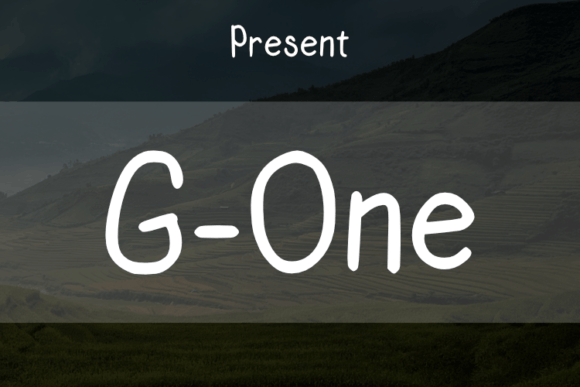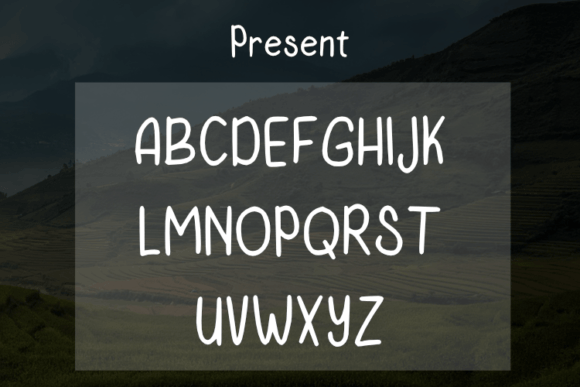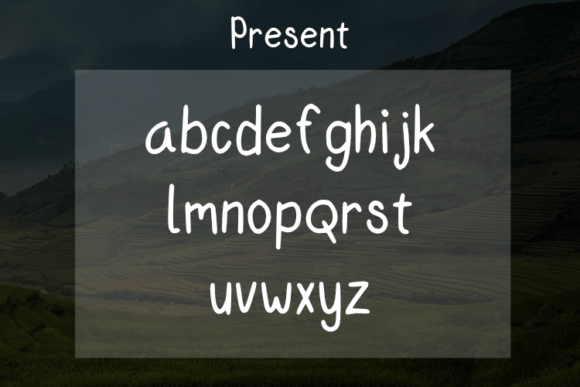
G One Font
About G One Font
G One is a stylish and delicate script font that exudes a clean, thin, and smooth vibe. Its elegant and refined appearance makes it a perfect choice for various design projects where sophistication and subtlety are key. The font’s sleek letterforms and graceful strokes add a touch of sophistication to any design, making it a versatile option for a wide range of applications.
Whether you’re working on branding materials, wedding invitations, product packaging, or any other design project, G One enhances the overall aesthetic with its stylish and delicate script. Its subtle curves and fine details create a sense of elegance, making your designs visually appealing and refined.
The font’s clean and thin lines give it a modern and contemporary feel, making it suitable for both digital and print designs. Its smooth vibe adds a touch of class to your projects, making them stand out with a subtle and understated elegance.
Incorporating G One into your designs allows you to achieve a polished and sophisticated look. Its delicate script style brings a sense of refinement to your text, making it suitable for various creative applications. Whether you’re designing logos, invitations, or any other visual materials, G One’s stylish and delicate appearance elevates your designs, adding a touch of class and elegance.
Embrace the stylish and delicate nature of G One, and let it enhance your projects with its clean, thin, and smooth vibe. Whether you’re creating digital graphics or printed materials, G One’s elegant script font will undoubtedly leave a lasting impression, making your designs exude sophistication and timeless charm.